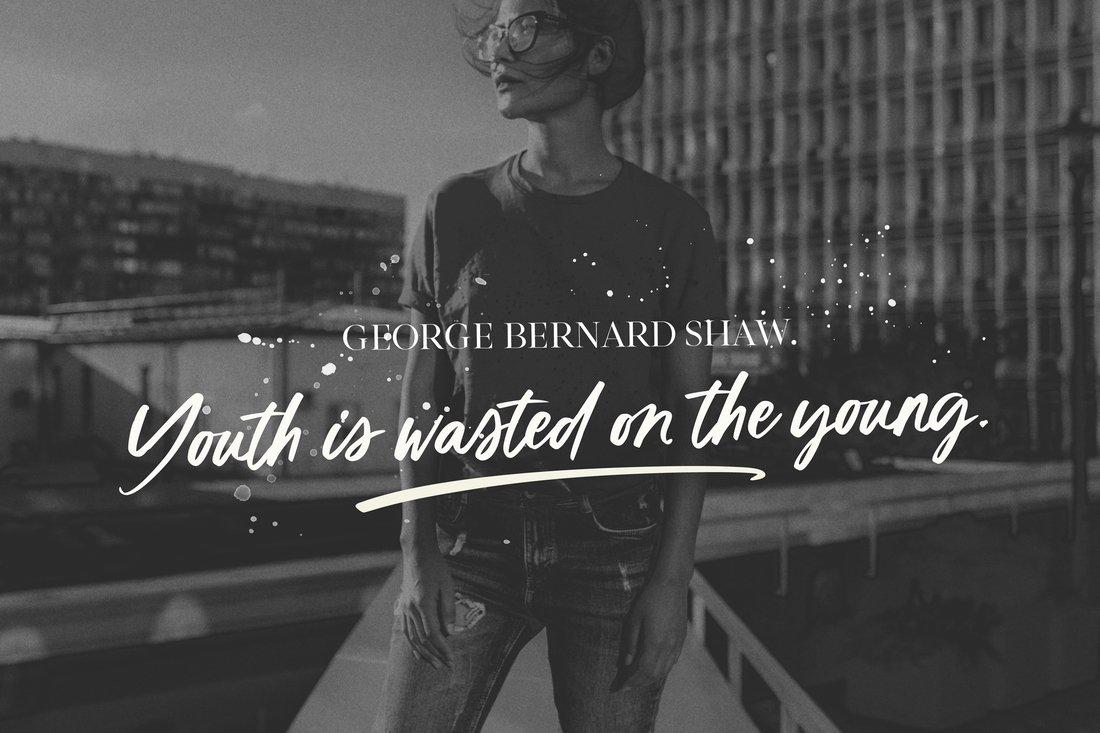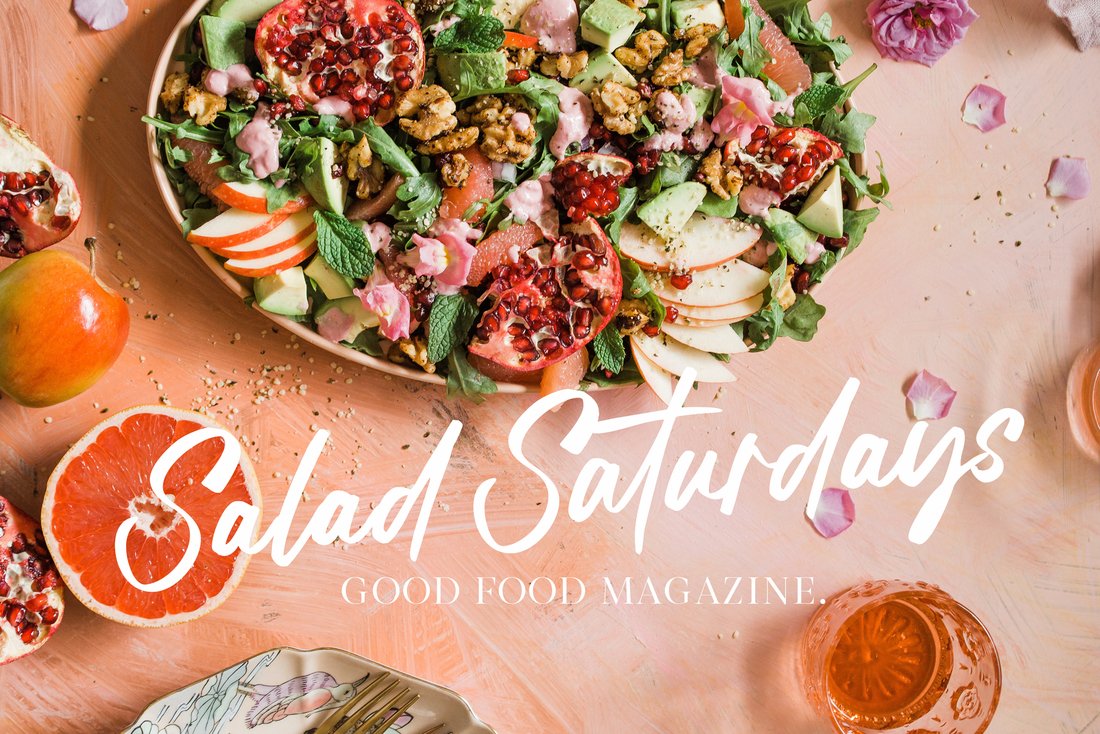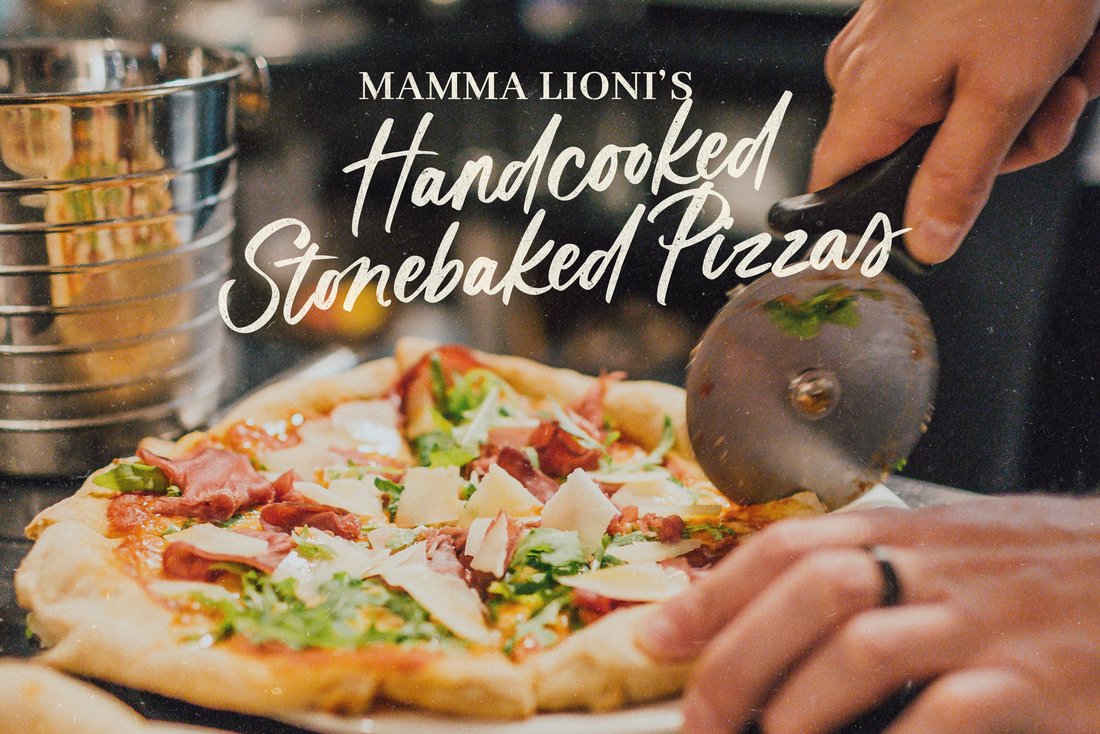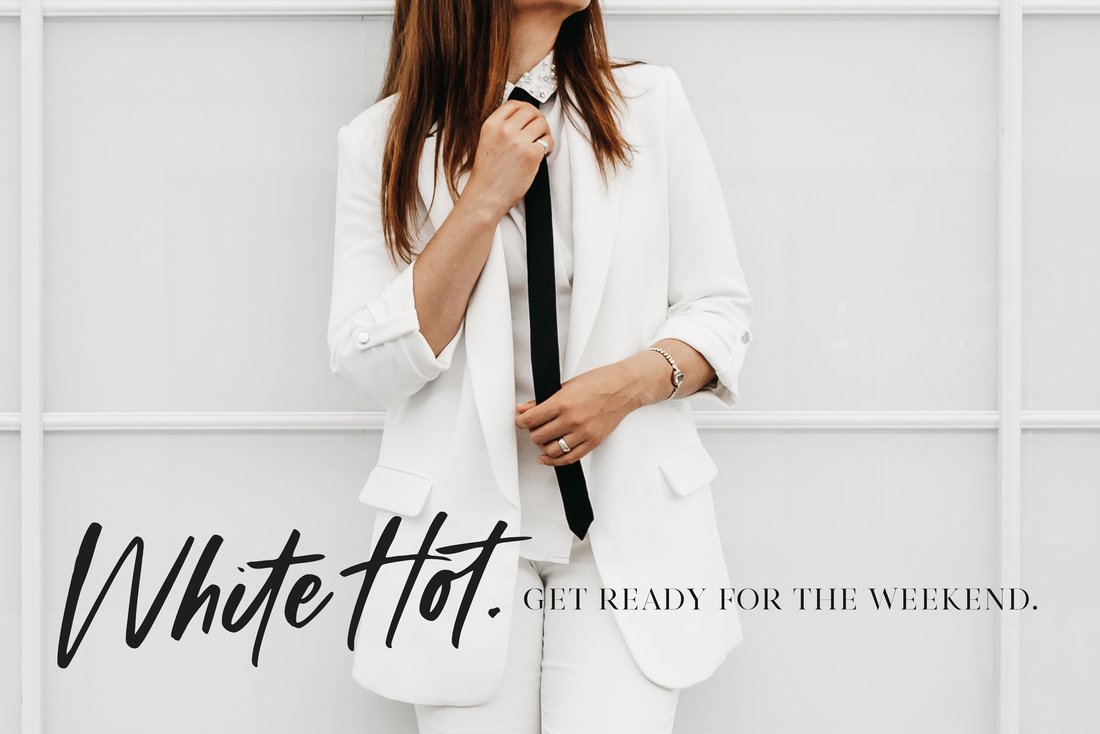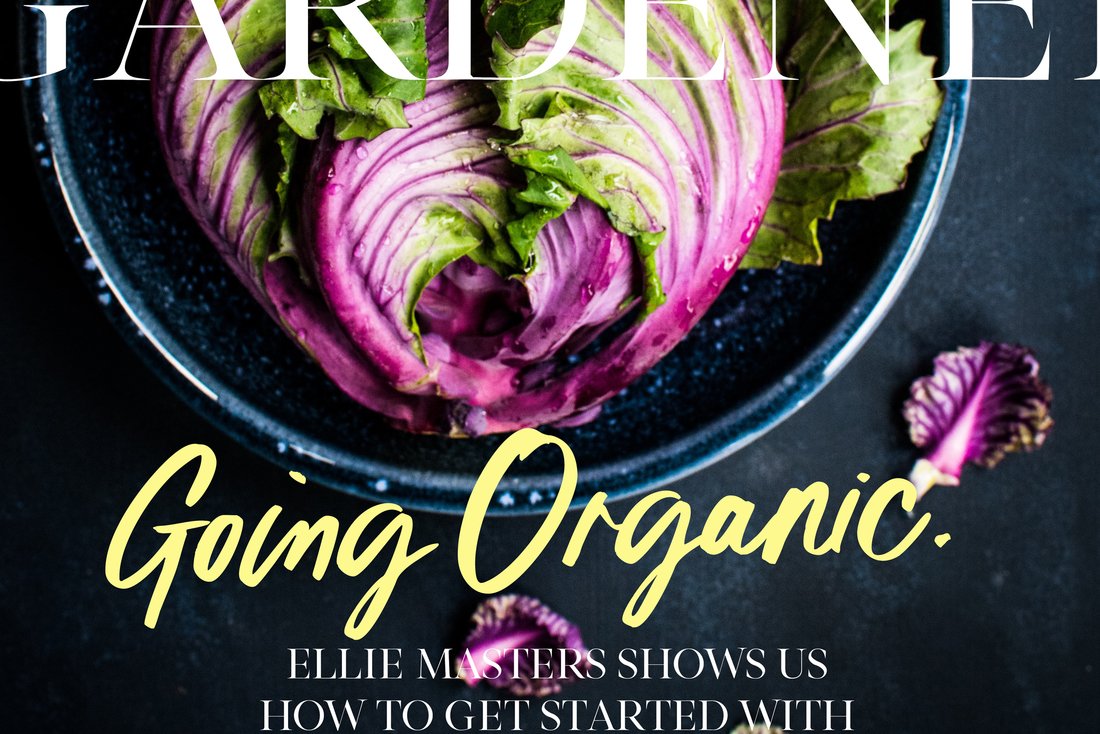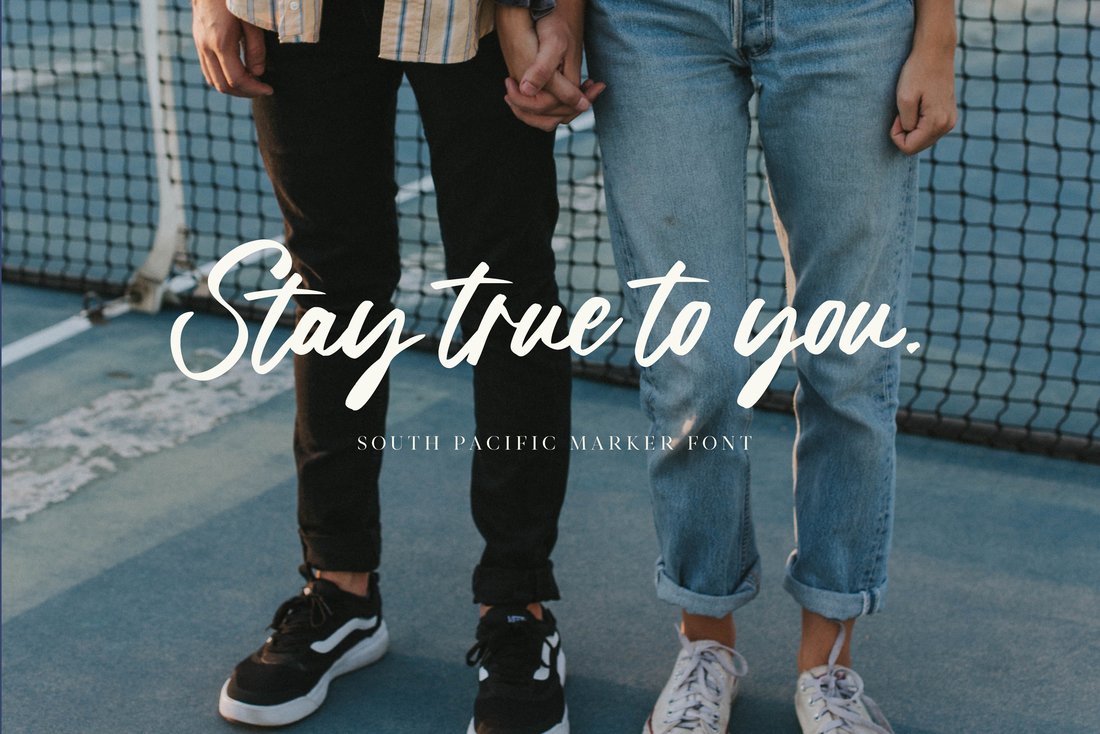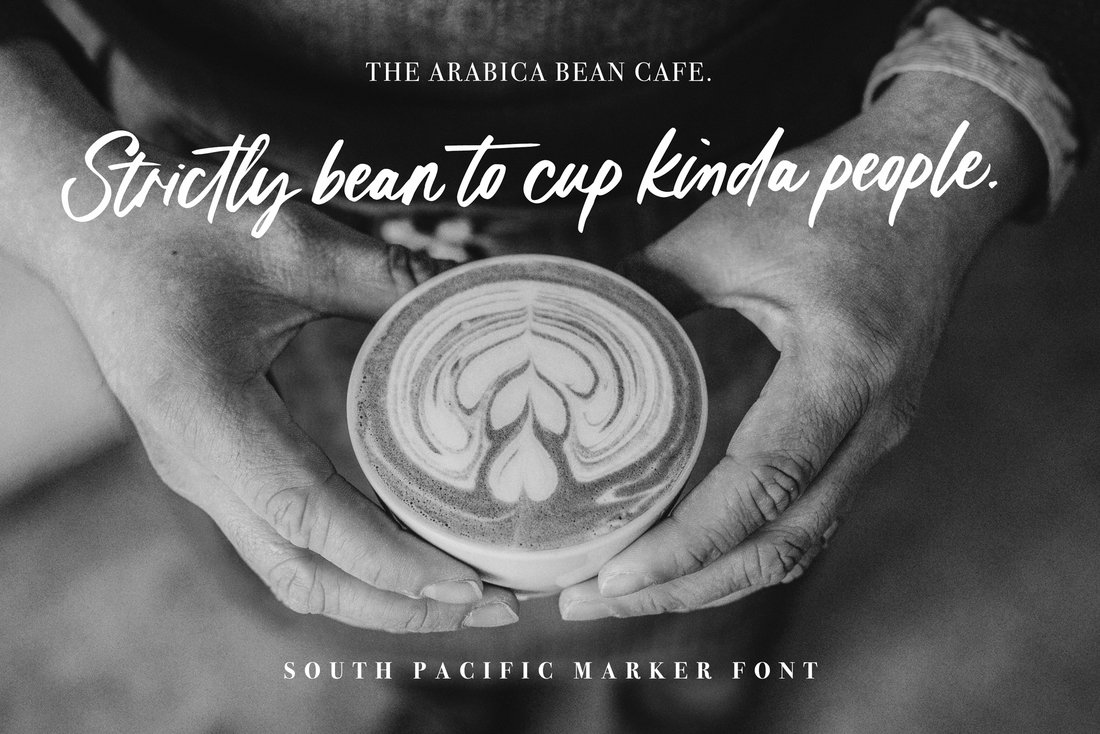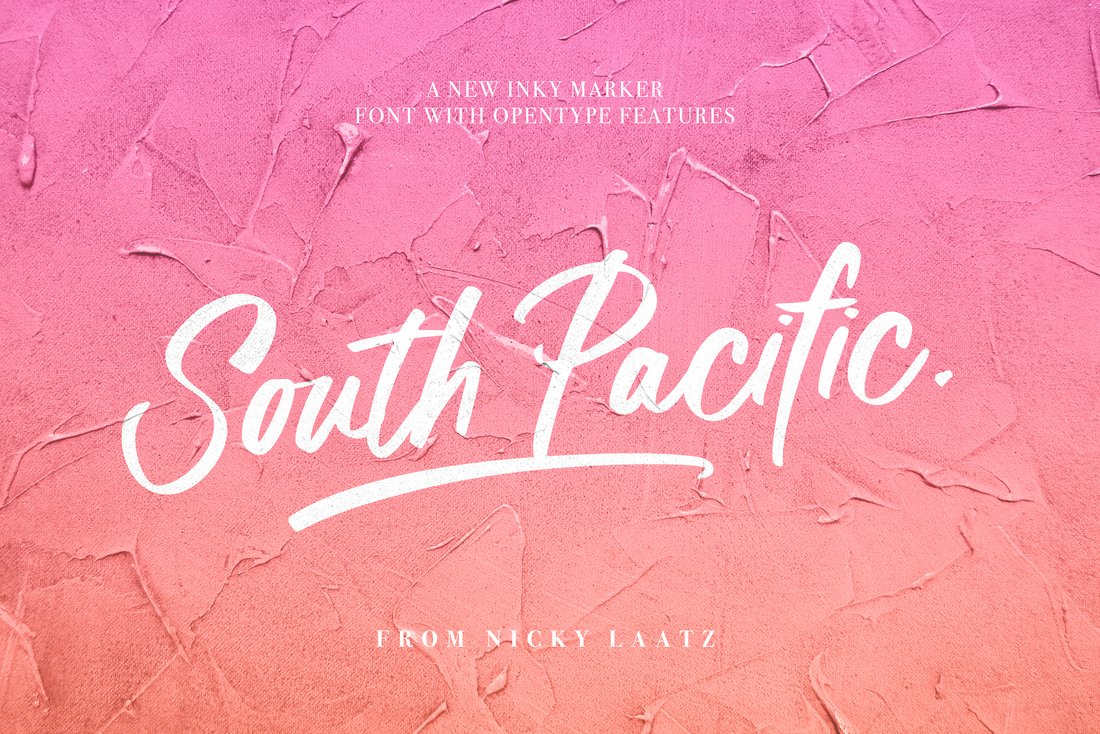
South Pacific Font
South Pacific Font by Nicky Laatz
Say hello to South Pacific Marker!
A new bold inky font with a casual handwritten feel. Perfect for making eye-catching headlines and head-turning statements!
Natural-looking ligatures
Turn on the Opentype features in the app you are typing with to take full advantage of all South Pacific's beautiful ligatures & extra characters.
Bonus Swashes
To make your designs even more punchy, 4 bonus swashes are also included in the glyphs set - access via your glyphs panel in Photoshop or Illustrator.